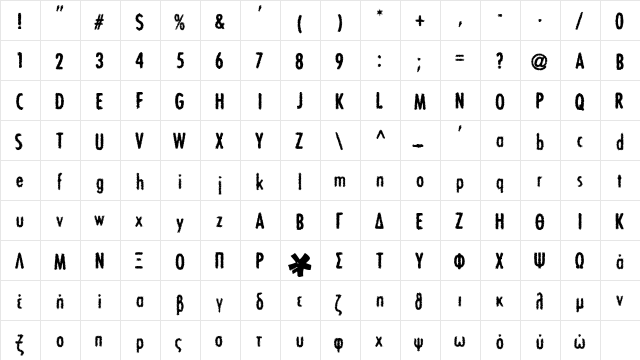
BON ViVEUR Regular
Design Context for BON ViVEUR Typeface
BON ViVEUR is a composed and adaptable typeface that performs quietly and consistently across a wide range of design contexts.
Pro Tip: Use BON ViVEUR in both headline and body roles to test its range before committing to a single application.